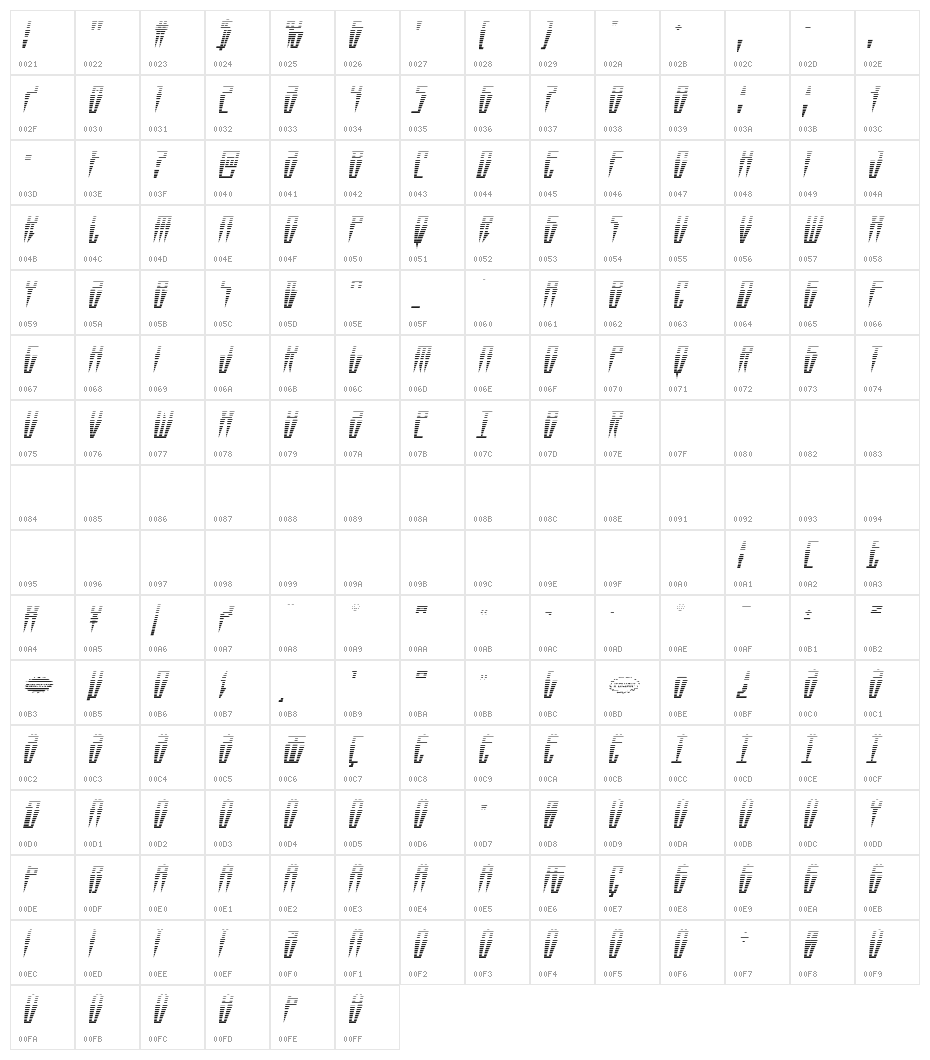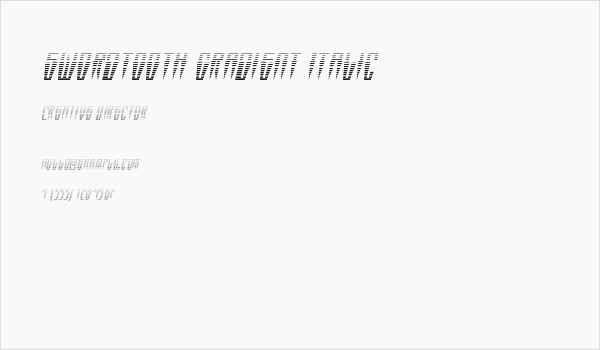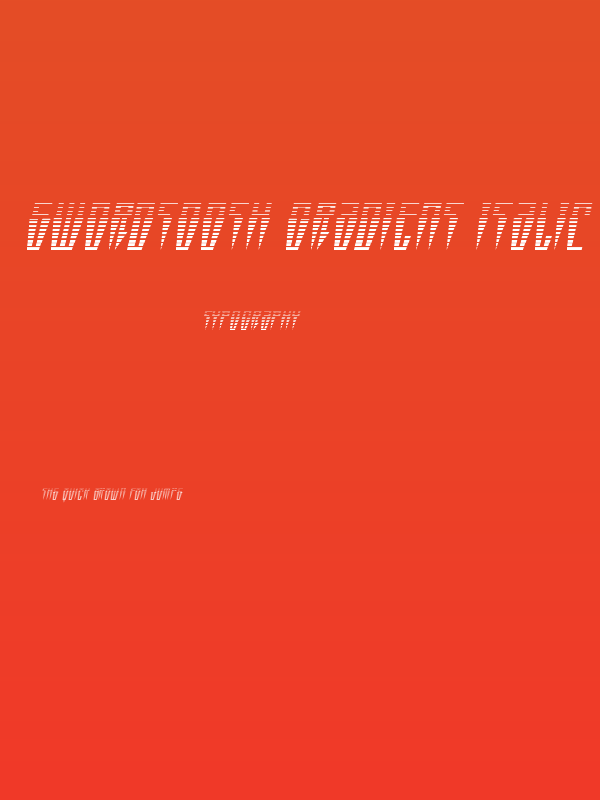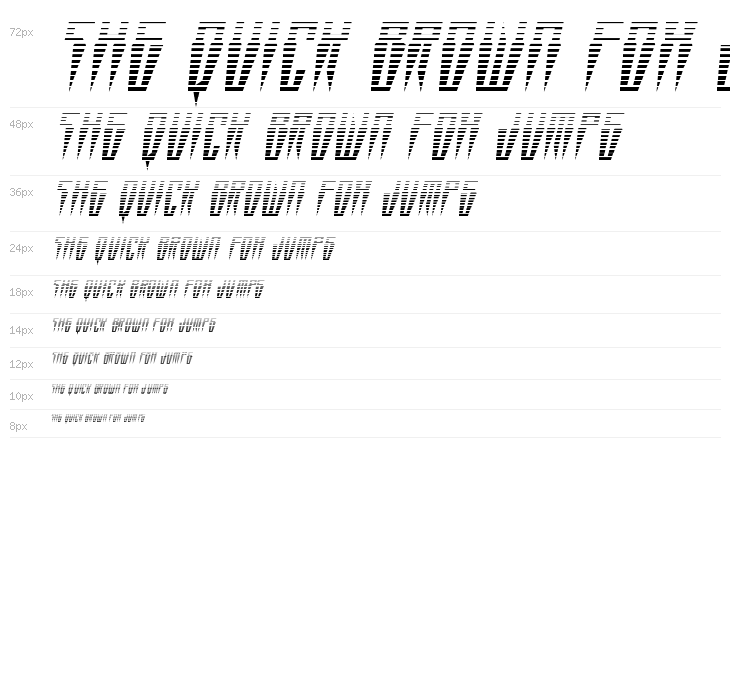
Swordtooth Gradient Italic Font
Swordtooth Gradient Italic Description
This font features a striking, modern design with a gradient effect that gives each character a dynamic, layered appearance. The italicized style adds a sense of motion and energy, making it ideal for attention-grabbing designs. The characters are sharply angled, with a futuristic aesthetic that is both bold and distinctive. The gradient effect creates a sense of depth and dimension, enhancing the visual impact. This font is perfect for projects that require a contemporary and edgy look, such as tech branding, digital art, or innovative advertising campaigns.